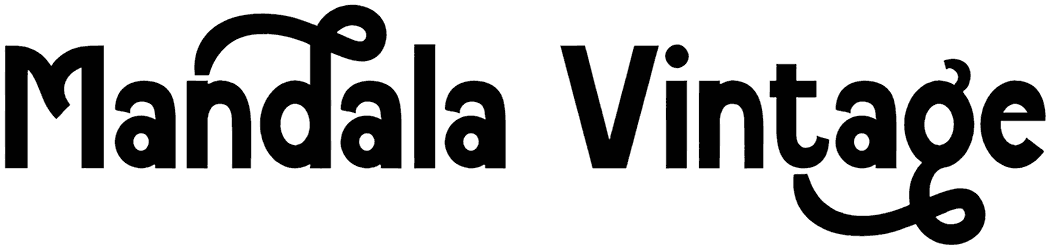
Mandala Vintage Font
Mandala Vintage is one of the fonts inspired by the serif style, which simultaneously brings a sense of history and elegance to any text.
This retro font has twists at the end of the letters that have created a pleasant mood for it and can add a different example to your territory. So if you are designing an art project and want to leave a lasting impression on website headers, book covers, or presentations, download Mandala Vintage.